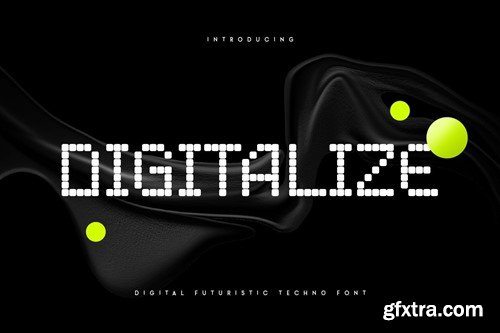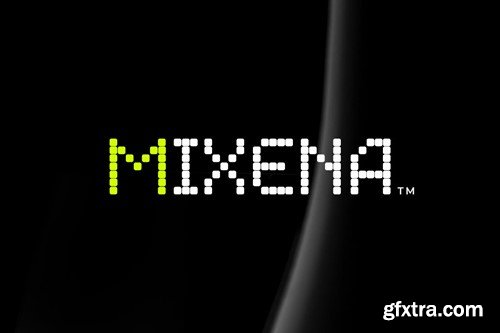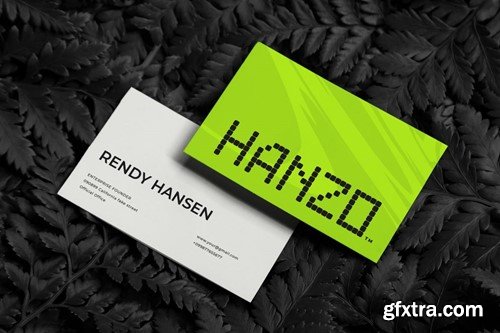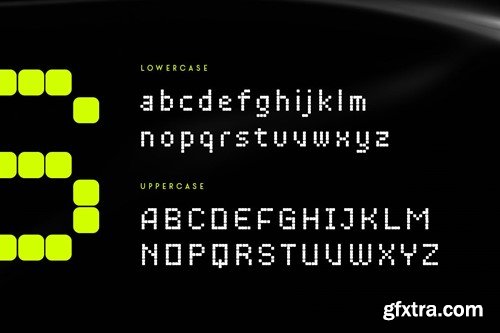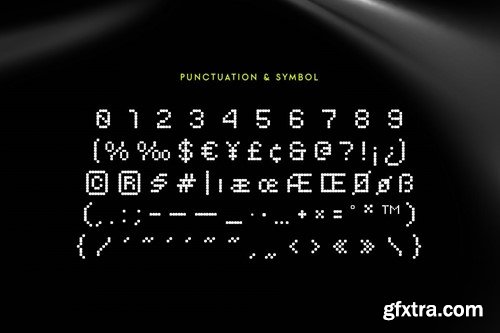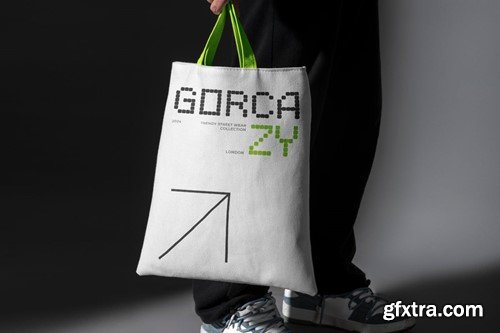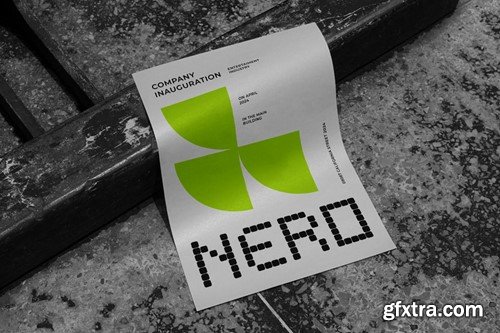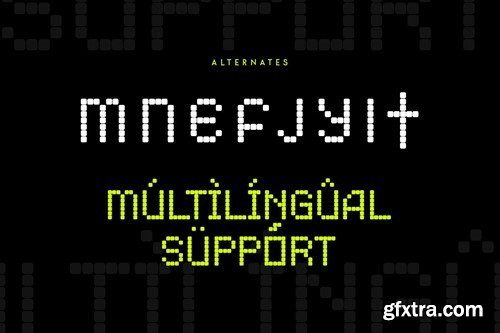
Digitalize - Digital Futuristic Techno Font VCLQPG3
Digitalize - Digital Futuristic Techno Font
A Digital Futuristic Pixel Techno font are prepared special for classic, pixel style, game, poster design needs that will add your value. It's so perfect to add your style and headline overview. And specially for Digitalize font, we crafted for classic style, NFT and unique feels so enjoy to create any project that will show your main idea out.
• Ready with Uppercase and Lowercase characters